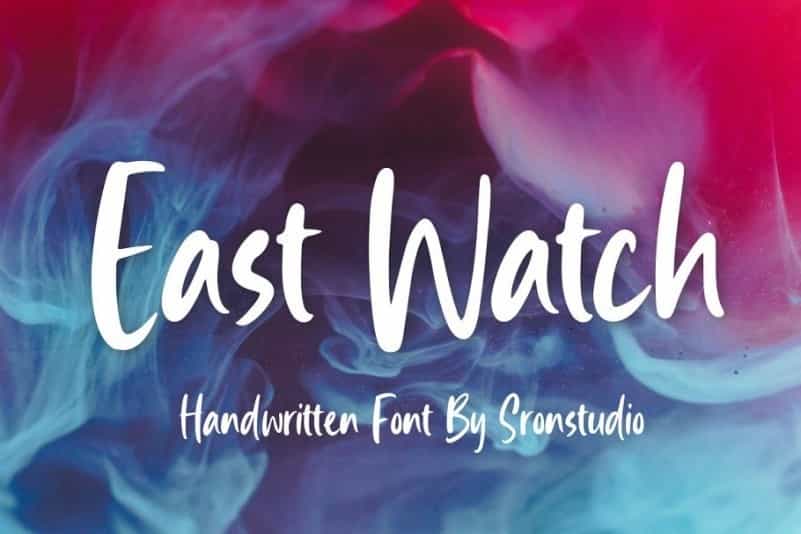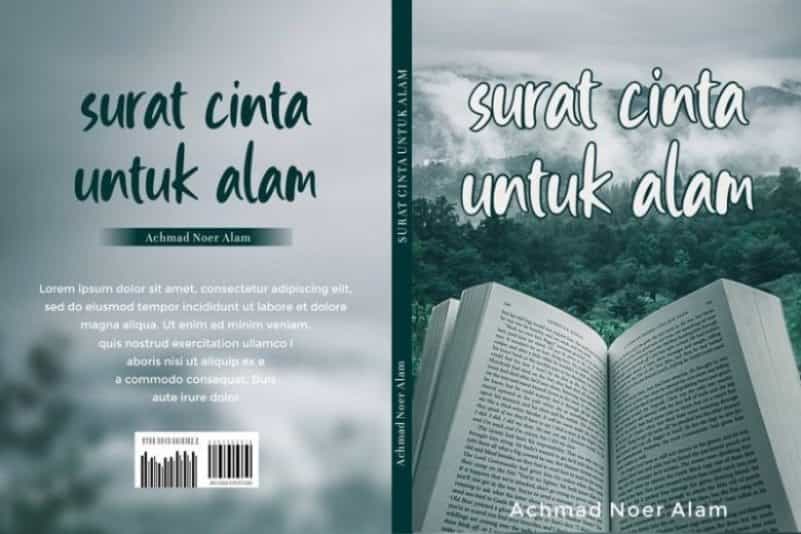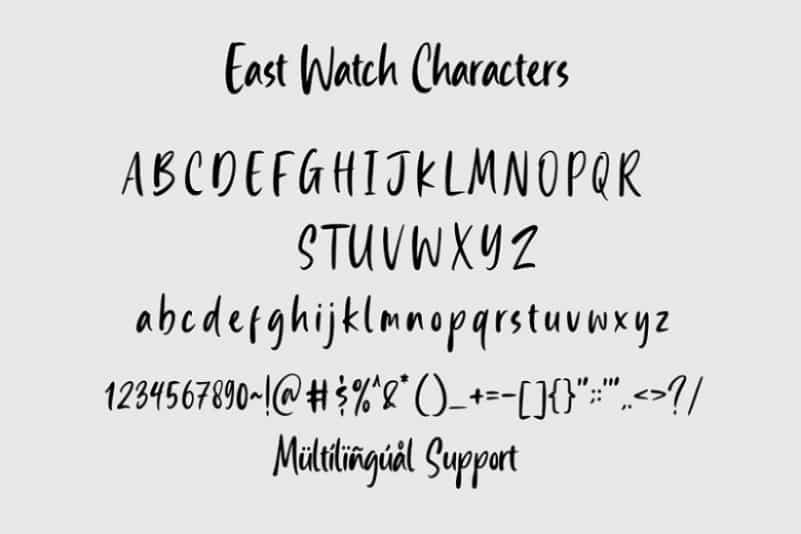
Discover East Watch Bold Handwritten Font, part of the Brush Handwritten collection—a versatile and unique font perfect for adding a personal touch to your projects. Download it for free and enjoy crafting designs with style, from invitations to social media posts. This font is available exclusively for personal use, giving you the freedom to create without limits. Unlock your creativity with East Watch Bold Handwritten Font today!
East Watch is a free font that can be used in logos, social networks, goods packaging, and photos. All the fonts are accompanied by a set of characters and symbols for the added convenience.